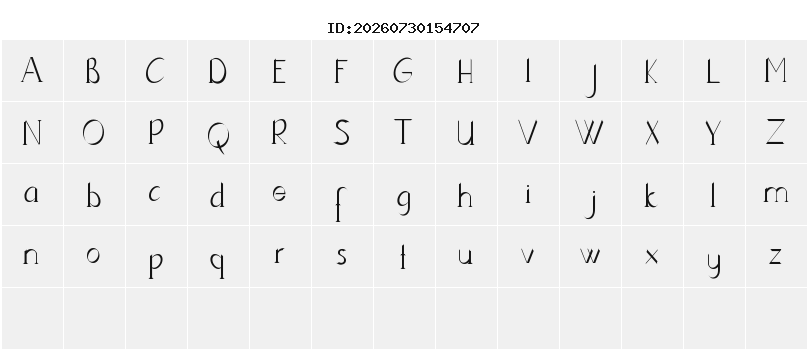
Lynzer Preview
• Font Name: Lynzer
• Font ID: Lynzer-Regular-2016:3:30
• Full Font Name: Lynzer Regular
• PostScript Name: Lynzer-Regular
• Character Count: 62
About Lynzer.ttf
Lynzer.ttf is a modern, elegant sans-serif font designed for ultimate readability and visual harmony. Perfect for branding, headlines, web design, and print materials.